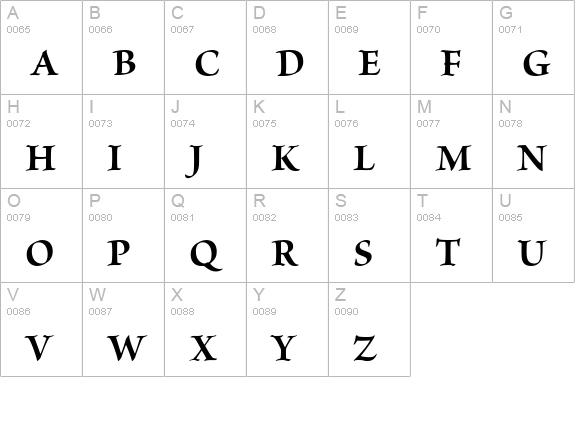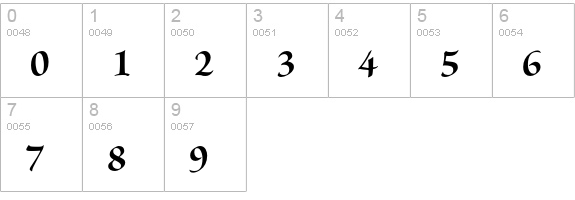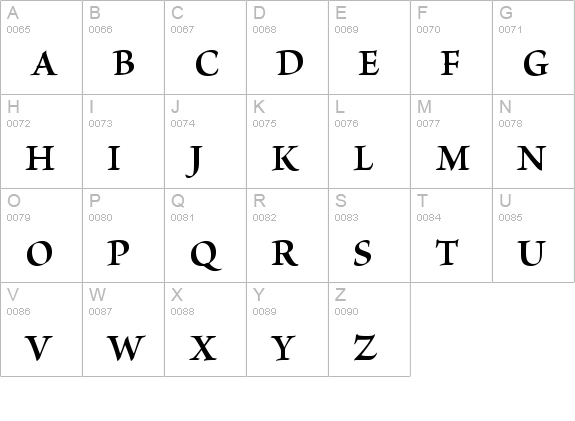
Brioso Pro Bold Subhead is a strong, high-contrast variant in the Brioso typeface family \xE2\x80\x94 well suited to headlines, attention-grabbing titles, and strong calls-to-action.
Introducing Brioso Pro Bold Subhead font, a modern and versatile typeface designed to make your headlines and subheadings stand out with bold elegance. With its strong and well-crafted letterforms, Brioso Pro Bold Subhead exudes confidence and sophistication, making it the perfect choice for projects that require a touch of boldness. This font is not only visually striking but also highly readable, ensuring that your message is conveyed with clarity and impact. Whether used in print or digital designs, Brioso Pro Bold Subhead makes a bold statement that captures attention and leaves a lasting impression. And the best part? Brioso Pro Bold Subhead font is available for free download at FontsMarket.com, allowing you to elevate your designs without breaking the bank. Don't miss out on this opportunity to add a touch of bold sophistication to your projects with Brioso Pro Bold Subhead font. Download it today and let your creativity shine!